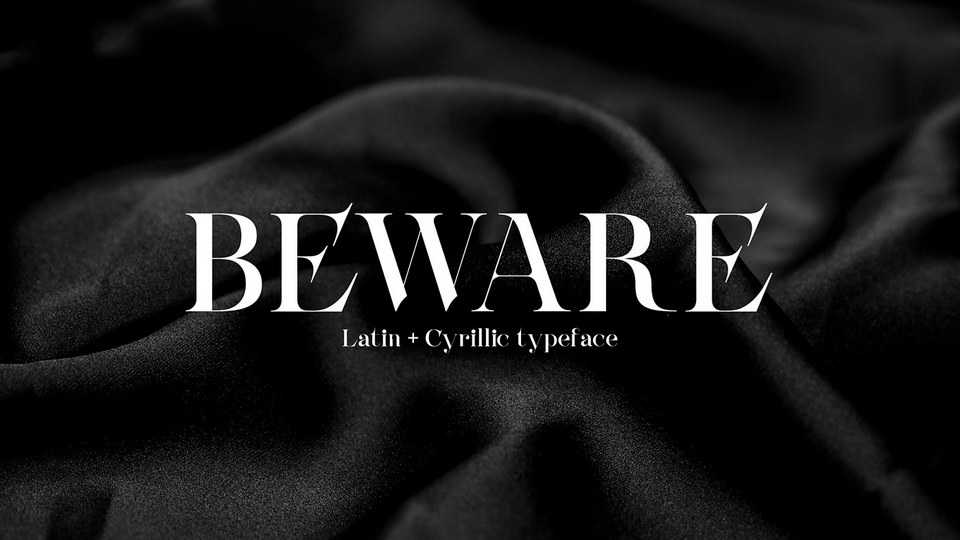
Download Beware font, a crisp high contrast serif typeface with a modern, elegant aesthetic. Beware font is perfect for projects connected to fashion, arts, literature, architecture, fine dining, cosmetics, beauty and etc.
Designer: Sasha Mouse